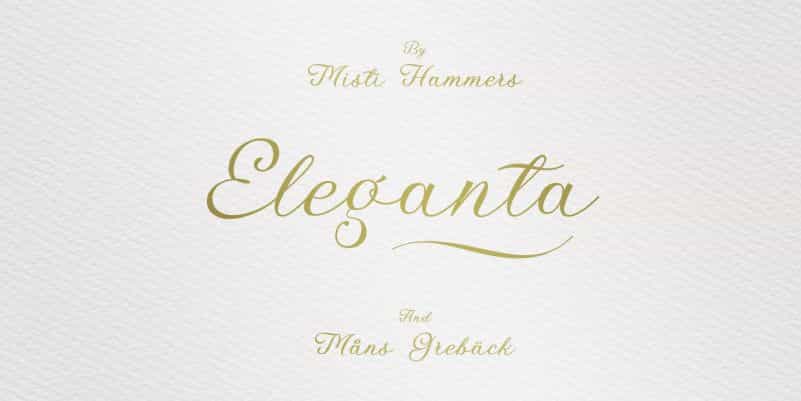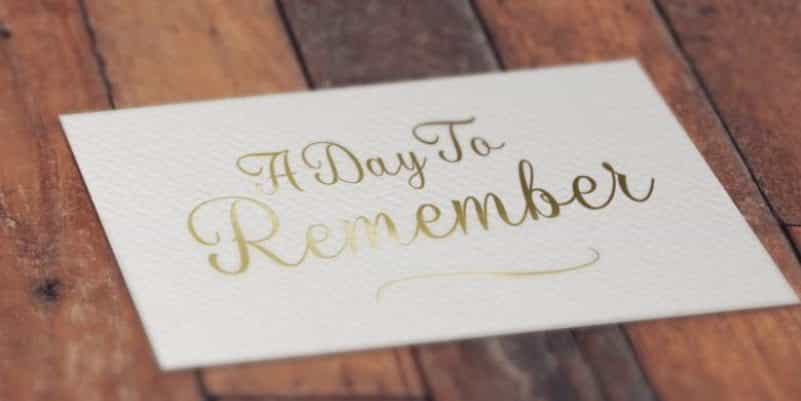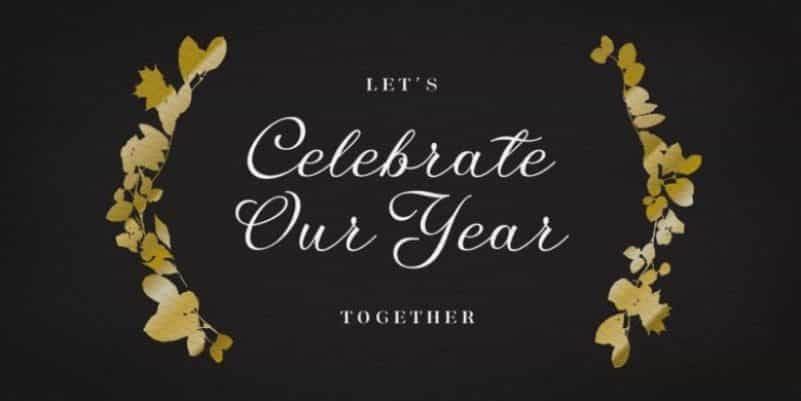
Discover Eleganta Font, part of the Calligraphy collection—a versatile and unique font perfect for adding a personal touch to your projects. Download it for free and enjoy crafting designs with style, from invitations to social media posts. This font is available exclusively for personal use, giving you the freedom to create without limits. Unlock your creativity with Eleganta Font today!